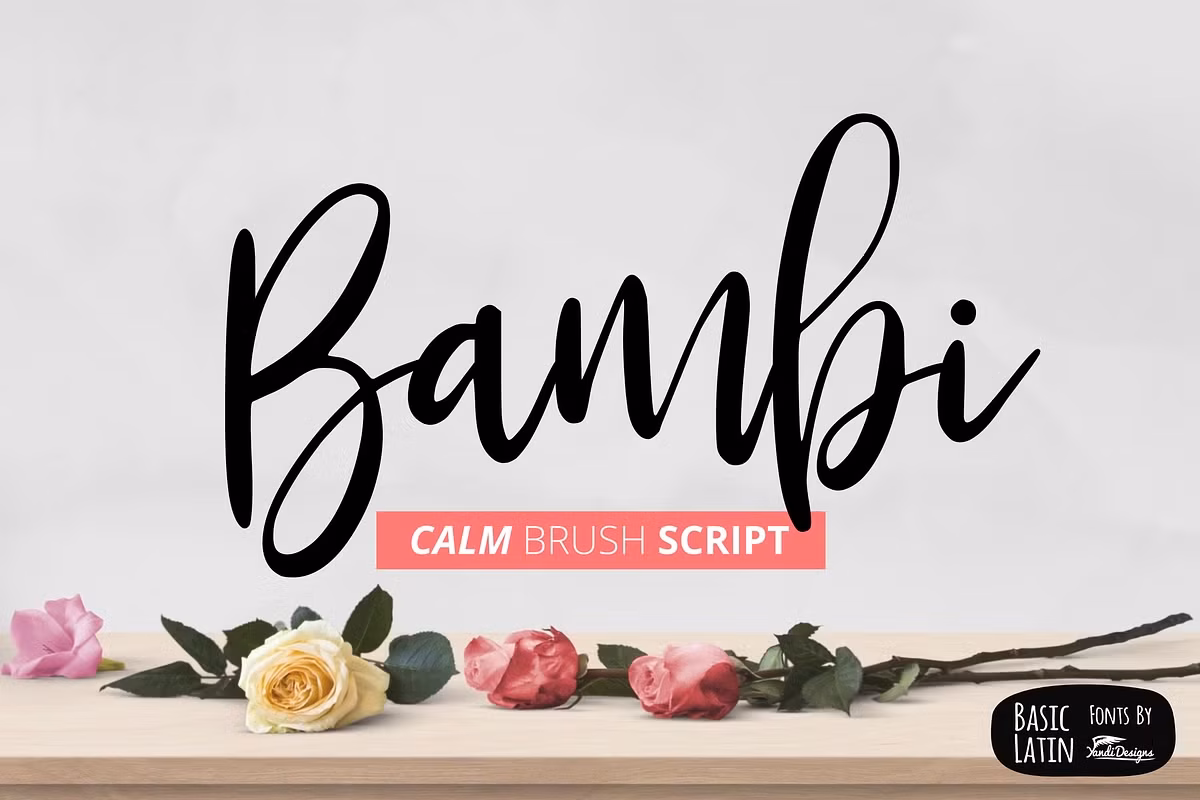
Bambi Font Free Download is a playful and charming typeface that adds a whimsical touch to your creative projects. With its smooth curves and elegant letterforms, Bambi is perfect for a variety of applications, including logos, posters, invitations, and more. This font exudes a friendly, modern feel, making it ideal for personal branding or design work that requires a warm, approachable look.